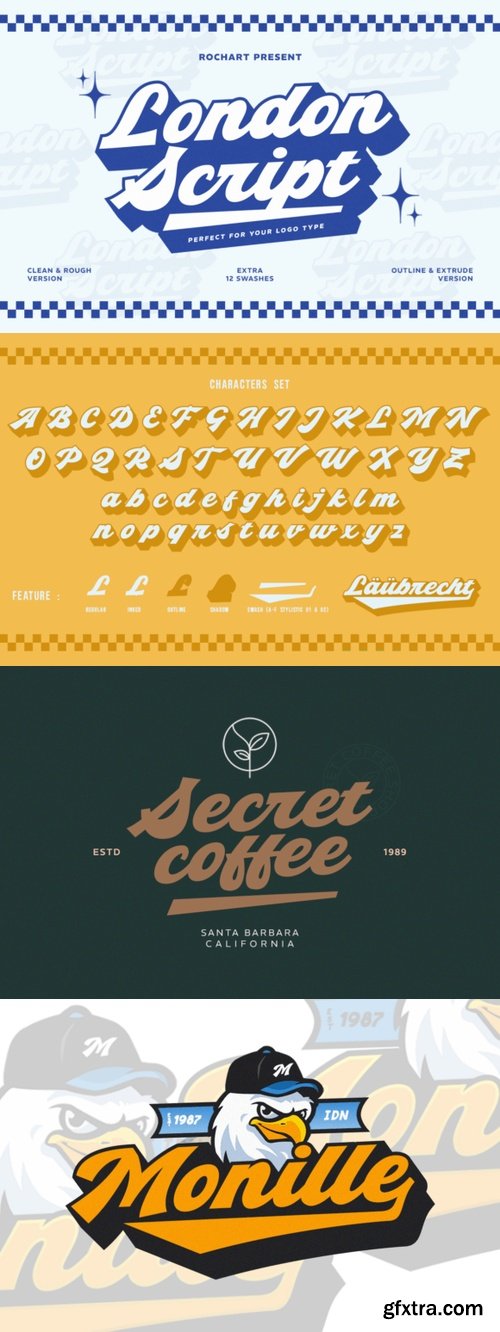
London Script Font
- London Script is a carefully crafted retro-inspired script font that blends vintage charm with modern versatility. With bold, flowing letterforms and dynamic stroke variations, this typeface exudes confidence, elegance, and nostalgia—perfect for branding, logos, and impactful design projects.